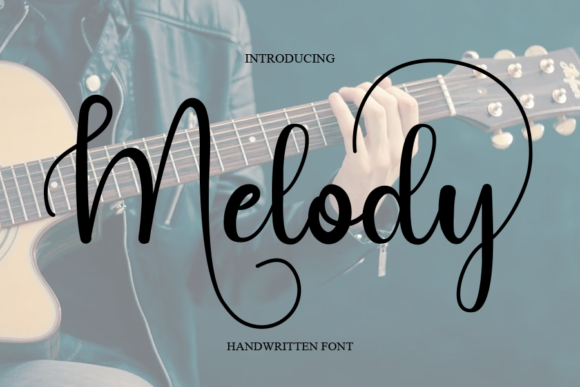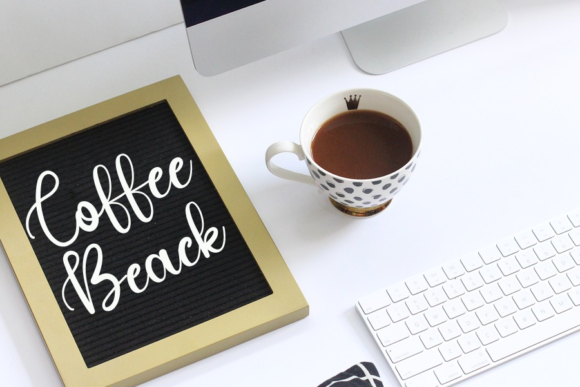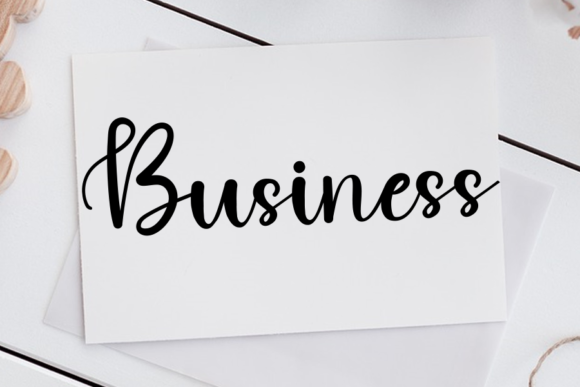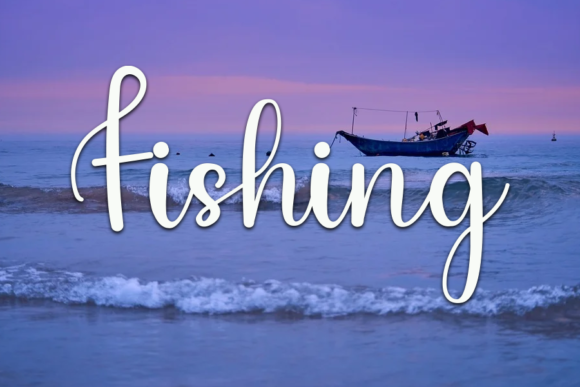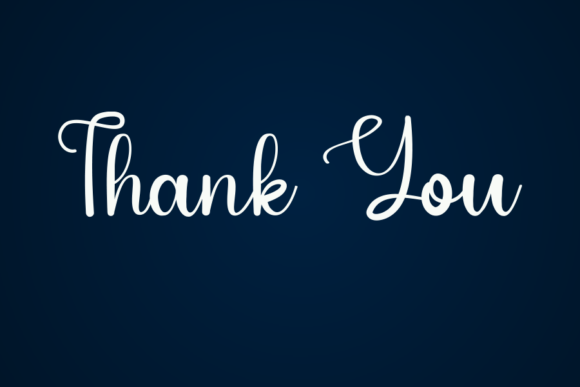
Melody Font
About Melody Font
**LovelyScript Font: A Sweet, Romantic, and Beautiful Typeface**
Presenting *LovelyScript Font*, a typeface that embodies sweetness, romance, and sheer beauty. With gracefully designed curves in each letter, this font is a visual delight that adds an extra layer of elegance to your projects. The inclusion of PUA coding ensures easy access to all the intricate glyphs and sweeps, providing you with a seamless and creative design experience.
*LovelyScript* is defined by its ability to effortlessly convey sweetness and romance. The beautiful curves in each letter create a harmonious and captivating visual flow. Whether you’re crafting love notes, designing wedding invitations, or working on any project that demands a romantic touch, *LovelyScript* brings a sense of beauty that resonates with emotions.
Beyond its visual appeal, *LovelyScript* is a versatile font suitable for a variety of design needs. Its sweet and romantic character makes it perfect for projects that require a soft and charming aesthetic. From intimate messages to elegant stationery, *LovelyScript* adds a layer of beauty that enhances the overall visual experience.
The PUA coding of *LovelyScript* is a valuable feature that simplifies the design process, allowing you to easily access all the glyphs and sweeps. This feature empowers you to explore and implement a diverse range of characters effortlessly. Unleash your creativity as you customize and personalize your projects with the unique elements that *LovelyScript* offers.
In essence, *LovelyScript Font* is not just a typeface; it’s an expression of sweet, romantic, and beautiful elegance. Elevate your designs with the enchanting charm of *LovelyScript*, turning each letter into a work of art that radiates love and sophistication. Whether you’re working on romantic graphics, heartfelt quotes, or any project that craves a touch of beauty, let *LovelyScript* be your preferred font for creating captivating visual narratives.